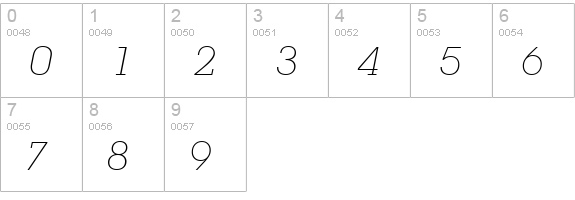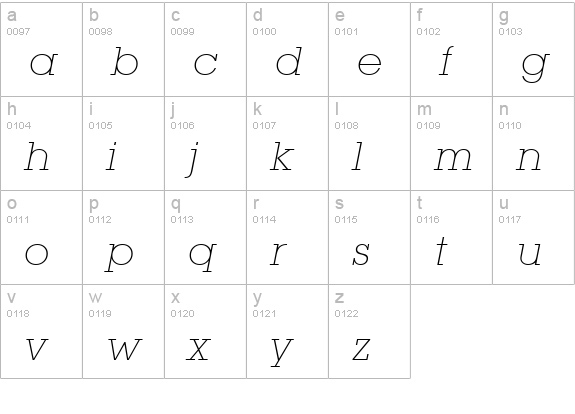
Lubalin Graph Extra Light Oblique BT Font Details
Lubalin Graph Extra Light Oblique BT is a refined, elegant, italic variant in the Lubalin typeface family \xE2\x80\x94 well suited to elegant body text, refined sub-headings, and luxury branding.
Lubalin Graph Extra Light Oblique BT font is a stylish and elegant typeface that exudes sophistication and modernity. Its sleek and slanted design adds a touch of flair to any project, making it perfect for use in fashion magazines, luxury branding, and editorial layouts. The extra light weight of this font gives it an airy and delicate appearance, perfect for creating a sense of grace and refinement in your designs. What makes Lubalin Graph Extra Light Oblique BT font even more appealing is that it is available for free download at FontsMarket.com. This means you can easily access this high-quality font and use it in your projects without any cost. Whether you're a professional designer or a hobbyist looking to elevate your creations, this font is a versatile and valuable addition to your toolkit. So why wait? Download Lubalin Graph Extra Light Oblique BT font today and bring a touch of sophistication to your designs.